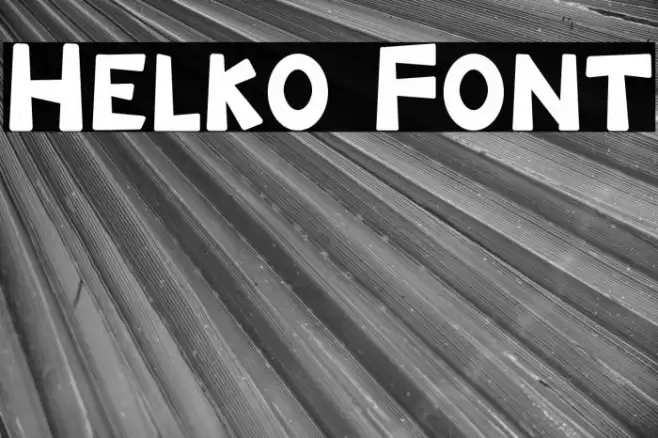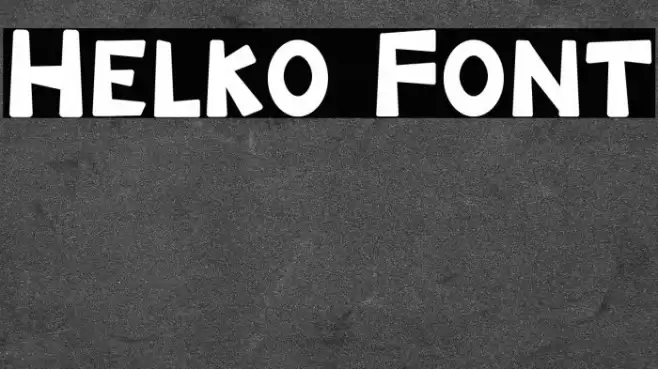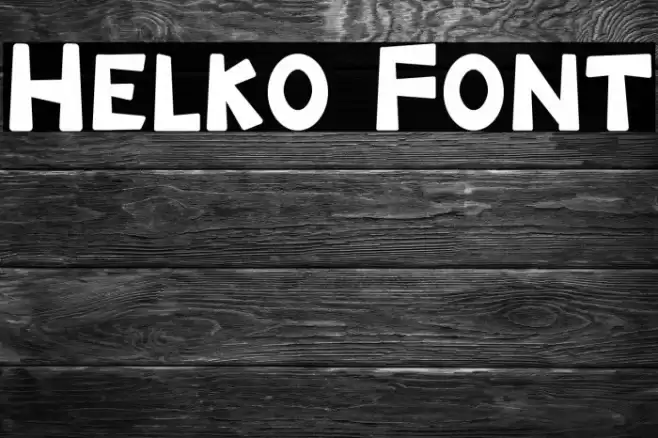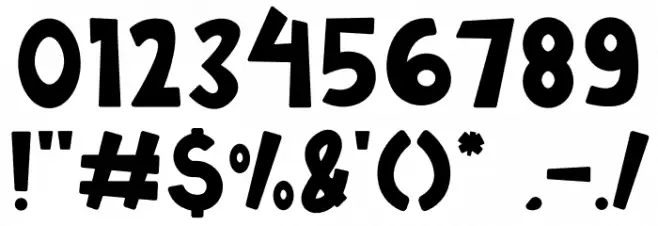
Helko Font
Helko Description
This font features a playful and bold style, characterized by its thick strokes and slightly irregular shapes. The letters have a hand-drawn appearance, giving them a casual and friendly vibe. The uppercase and lowercase letters maintain a consistent weight, while the numbers and special characters complement the overall aesthetic. The font's design is suitable for projects that require a fun and approachable look, such as children's books, posters, and informal branding. Its boldness ensures readability, making it effective for headlines and short text.
A playful, bold font with a hand-drawn, casual style from Cartoon fonts.
- Proposed Projects: Ideal for children's books, playful posters, informal branding, and headlines.
- Overall Style: Playful, Casual
- Use Case: Headlines, Posters, Branding